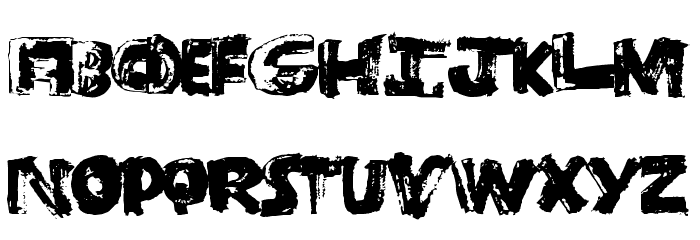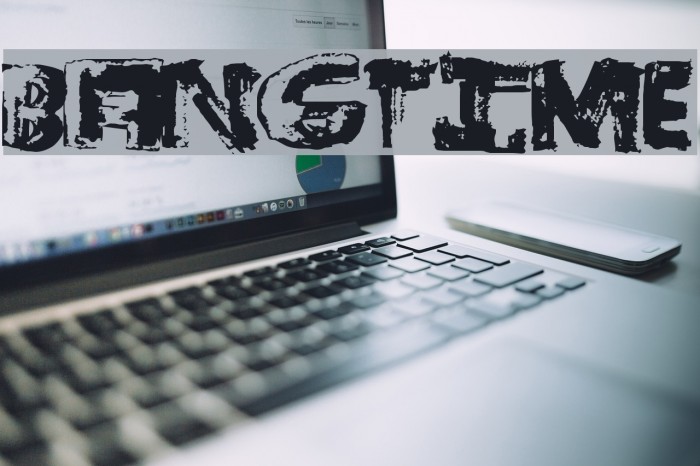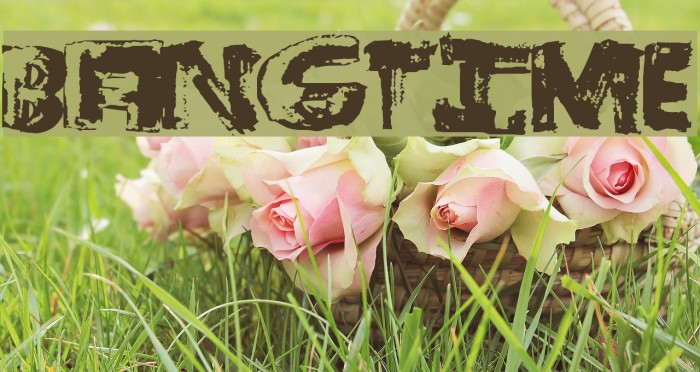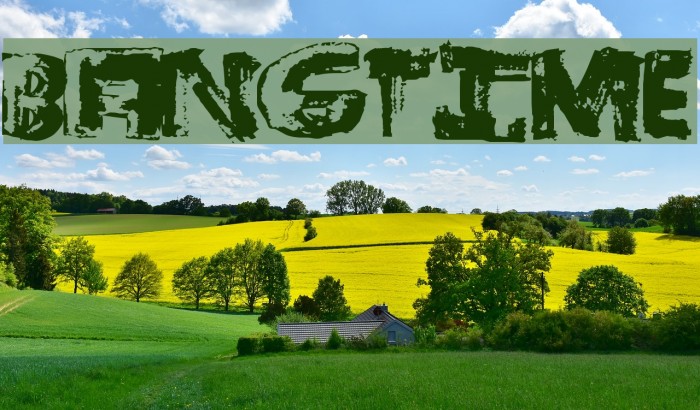
BangTime Font
This font features a bold, distressed style with a grunge aesthetic. The characters are heavily textured, giving them a rough, worn appearance that suggests a sense of urgency and dynamism. The uppercase and lowercase letters maintain a consistent design, with irregular edges and a hand-painted look. The numbers and special characters follow the same theme, ensuring a cohesive appearance across all glyphs. This font is ideal for projects that require a raw, edgy feel, such as music album covers, posters, or urban-themed designs.
A bold, distressed font with a grunge, hand-painted style.
- Proposed Projects: Ideal for music album covers, posters, urban-themed designs, and edgy branding.
- Overall Style: Grunge, Edgy